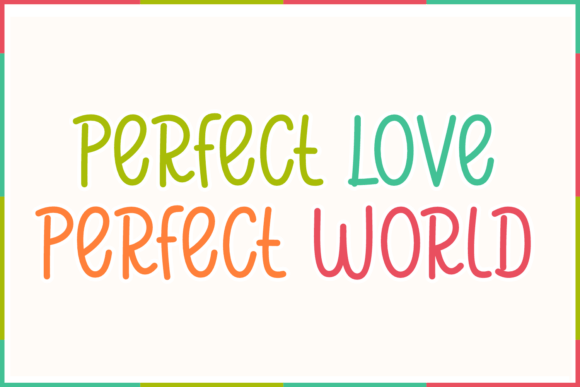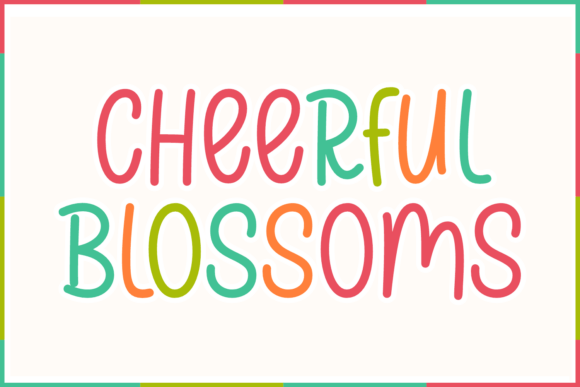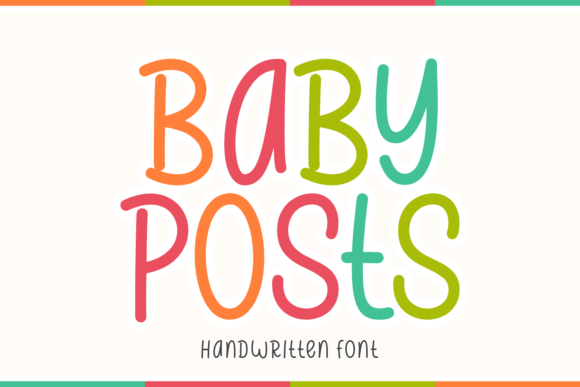
Baby Posts Font: The Ultimate Crafty Companion for Designers and Crafters
Immerse yourself in the captivating charm of Baby Posts Font, a handwritten craft that perfectly embodies cuteness. This intricately designed crafty font is ideal for transforming quotes into memorable silhouettes. The playful girly vibe infused into each letter makes it a perfect choice for unicorn themes or to add a magical twist during Christmas time.
The Quirky Nature of Baby Posts Font
Baby Posts Font boasts a quirky nature that sets it apart from other fonts. Its cutting-friendly architecture makes it a favorite among crafters and designers who want to create unique and eye-catching designs. The font’s playful and girly vibe is sure to put a smile on every observer’s face, making it perfect for Christmas designs, cute crafts, and stylish t-shirts.
A Versatile Font for Various Creative Spaces
Baby Posts Font is not just limited to one specific use case. Its versatility makes it an excellent choice for a wide range of creative projects. Whether you’re designing a unicorn theme for a t-shirt, crafting a handmade card, or creating a stylish quote for social media, Baby Posts Font adapts seamlessly to various design styles.
Perfect for Cute Designs and Silhouette Crafting
One of the standout features of Baby Posts Font is its ability to create adorable silhouettes. The font’s intricate design and playful vibe make it perfect for crafting cute designs that are sure to delight. Whether you’re creating a custom design for a client or working on a personal project, Baby Posts Font is sure to bring your ideas to life.
Easy on the Eyes and Smooth Text Finish
Baby Posts Font is designed to be smooth and easy on the eyes. The font’s clean and elegant design ensures that your text looks professional and visually appealing. Whether you’re using the font for a digital project or printing it out, Baby Posts Font is sure to deliver a high-quality finish.
Why Designers and Crafters Love Baby Posts Font
So, what makes Baby Posts Font a favorite among designers and crafters? Here are just a few reasons:
- Unique and Quirky Design: Baby Posts Font boasts a unique and quirky design that’s sure to stand out from the crowd.
- Versatility: The font is versatile and can be used for a wide range of creative projects.
- Cute and Playful Vibe: The font’s cute and playful vibe makes it perfect for creating adorable designs.
Tips for Using Baby Posts Font
Here are some tips for using Baby Posts Font in your designs:
- Experiment with Different Sizes: Try experimenting with different font sizes to see how Baby Posts Font looks in various contexts.
- Pair with Other Fonts: Pair Baby Posts Font with other fonts to create a unique and visually appealing design.
- Use for Quotes and Sayings: Use Baby Posts Font to create beautiful quotes and sayings that are sure to inspire.
| Author | Refy (7NTypes) |
In conclusion, Baby Posts Font is a must-have for designers and crafters who want to add a touch of cuteness and whimsy to their designs. With its quirky nature, versatility, and ease of use, Baby Posts Font is sure to become a favorite in your design toolkit. Whether you’re creating a unicorn theme for a t-shirt, crafting a handmade card, or designing a stylish quote for social media, Baby Posts Font is the perfect companion for all your creative projects.